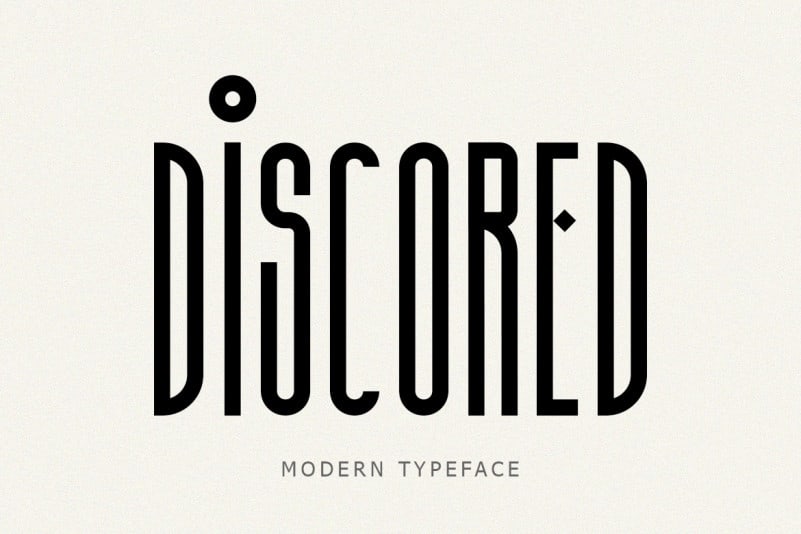
Discored Font
Discored Display Font is a sans serif font inspired by a sign painting in the 60s. Made from font designer named Lyth Creative. This typeface is Modern sans serif display typeface that can be used for various purposes such as logos, wedding invitations, t-shirts, letterheads, signage’s, labels, and much more!